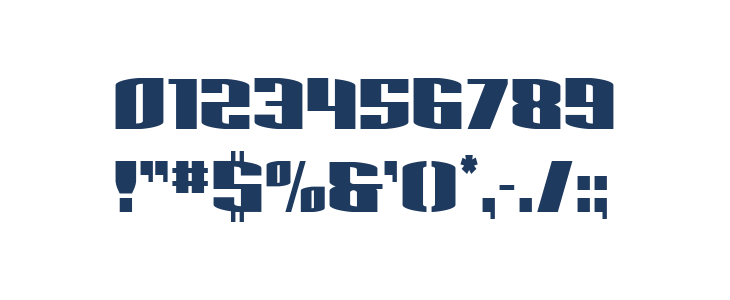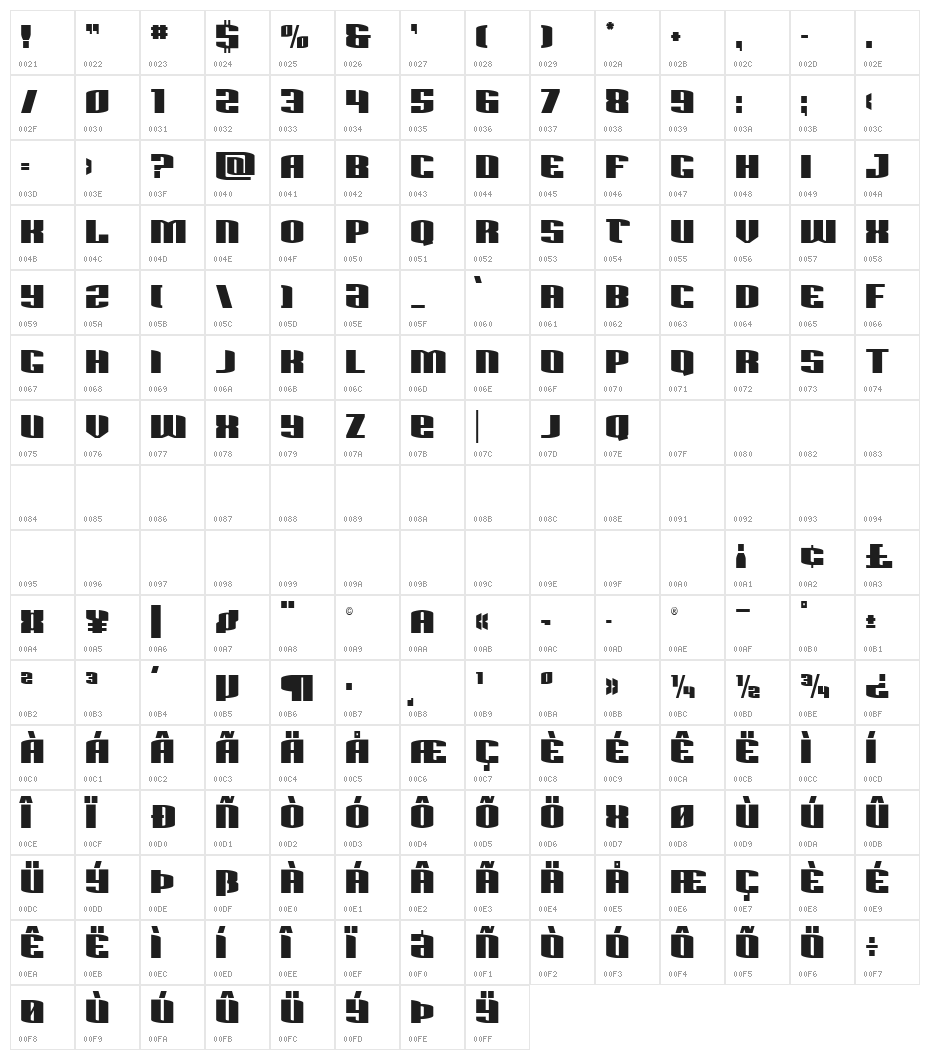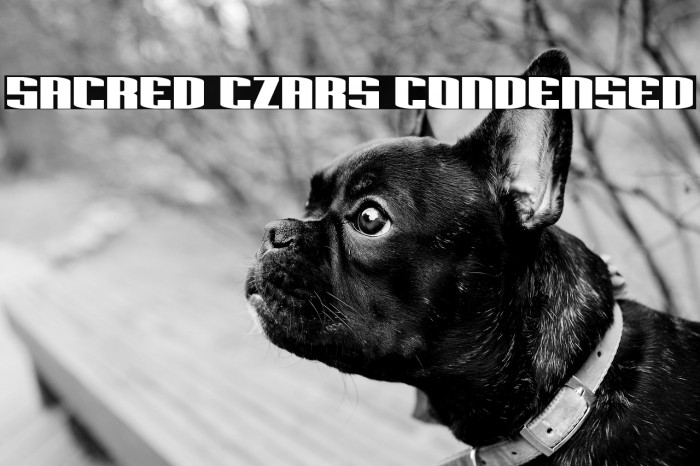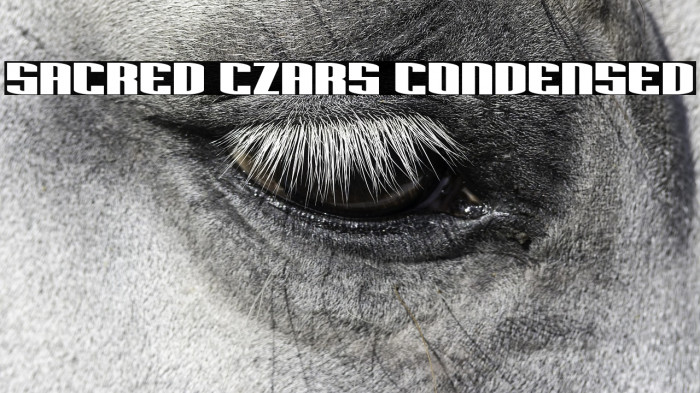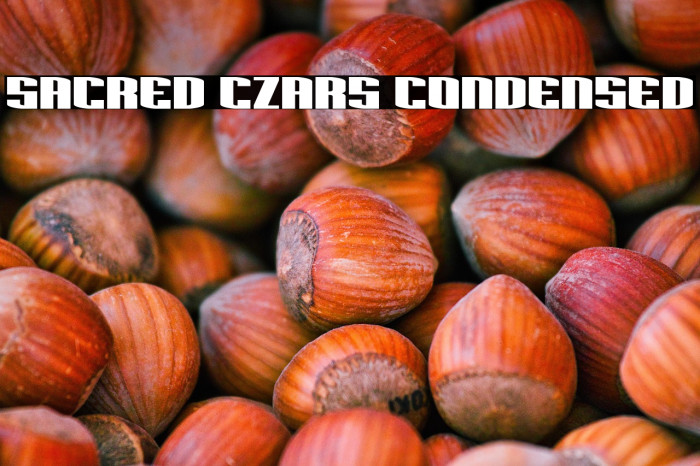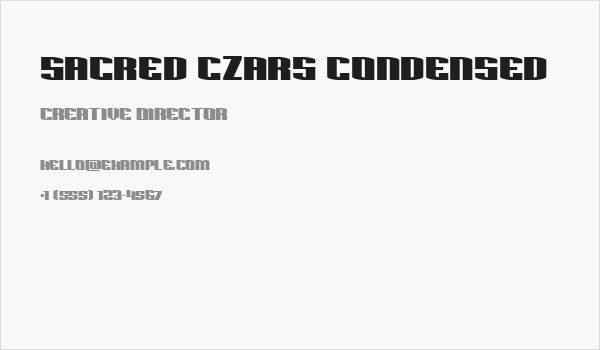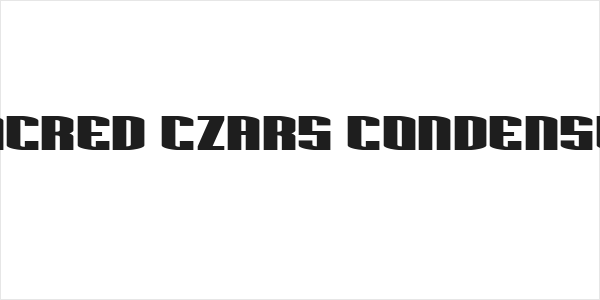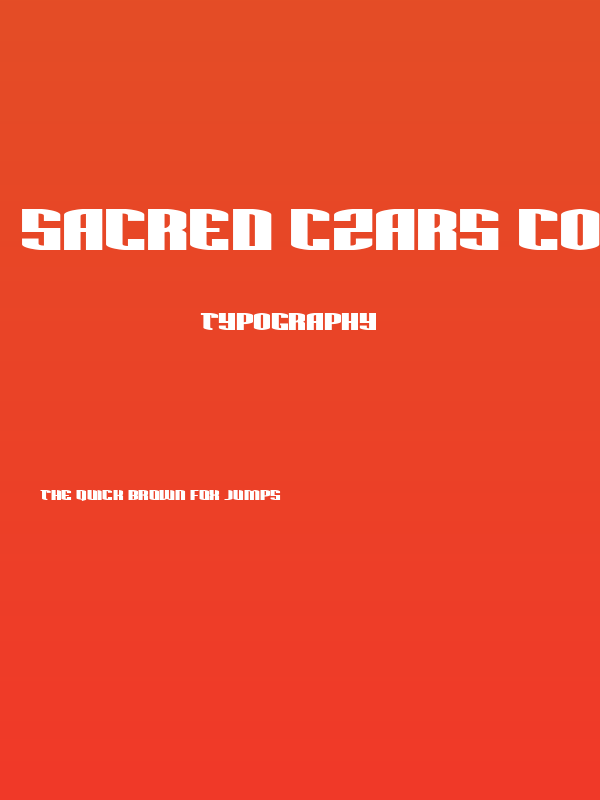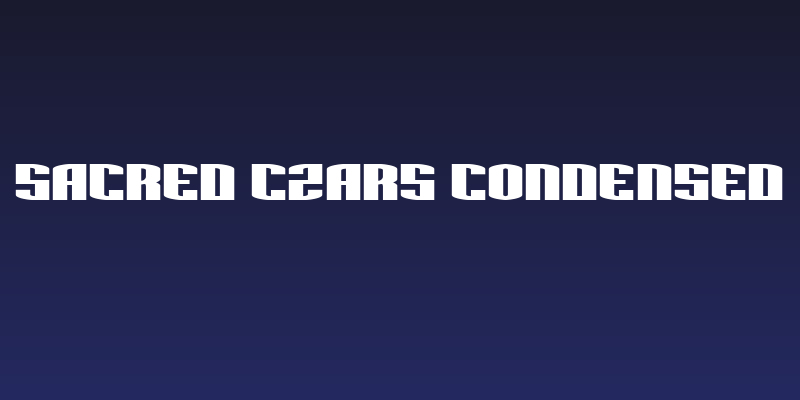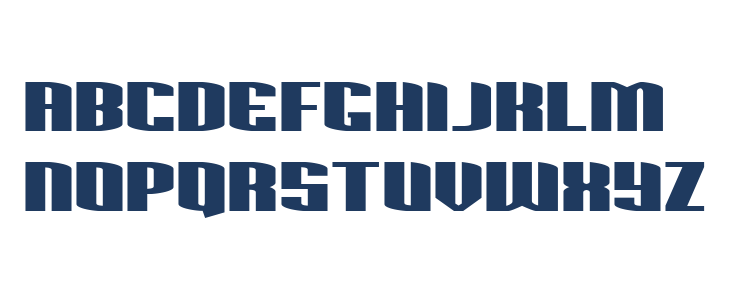
Sacred Czars Condensed Font
Sacred Czars Condensed Description
This font features a bold and striking design with a condensed width, giving it a powerful and impactful presence. The characters are blocky and geometric, with sharp angles and a uniform thickness throughout. The uppercase letters are particularly dominant, with a strong vertical emphasis that commands attention. The numbers and special characters maintain the same bold aesthetic, ensuring consistency across all glyphs. This font is ideal for creating a dramatic and assertive visual statement, making it suitable for headlines and display purposes.